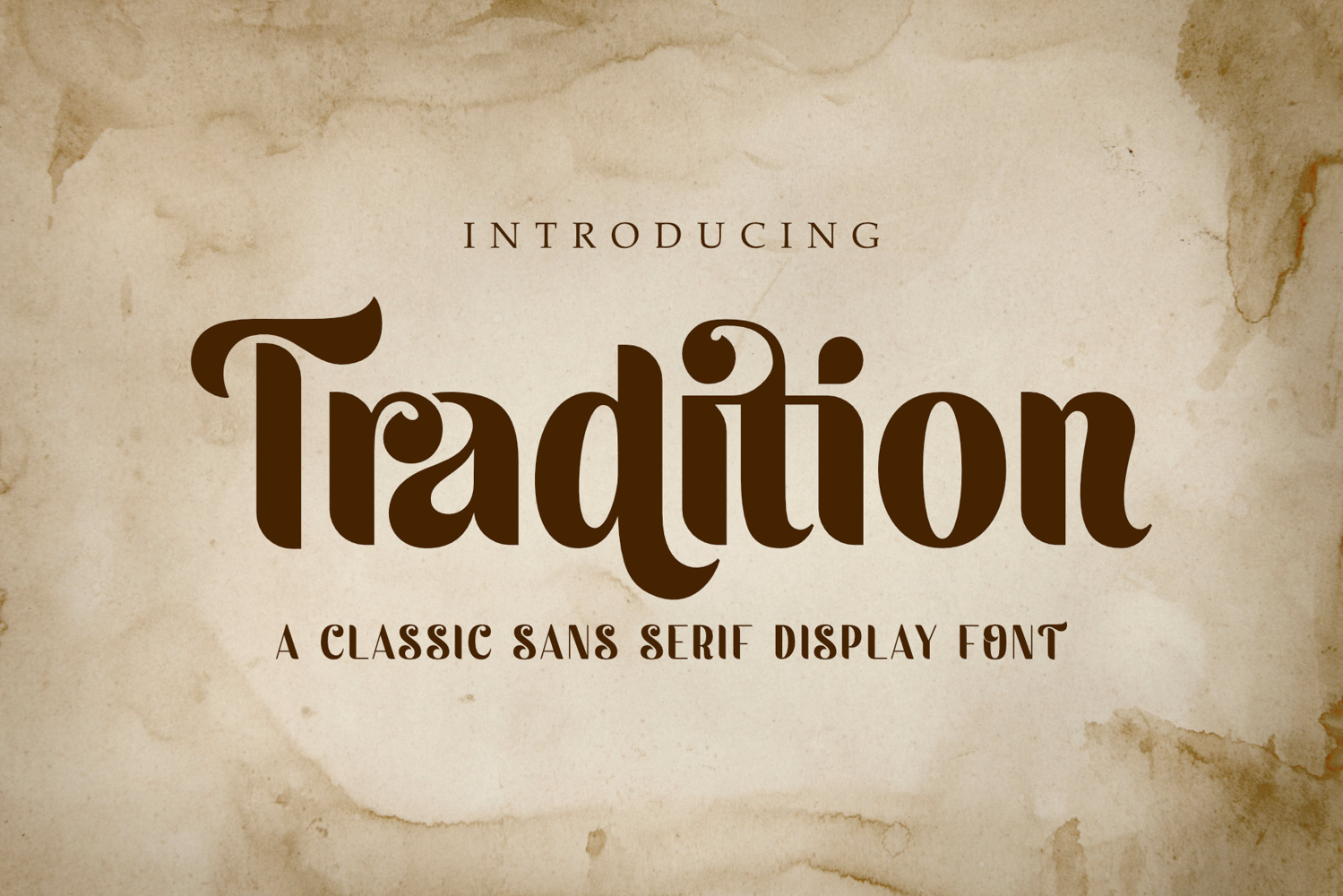
Tradition | A Classic Display Sans Serif Font
Tradition
Tradition is a classic display sans serif font that embodies timeless elegance and sophistication. Its clean, sharp lines and balanced letterforms make it an ideal choice for a variety of projects where a touch of refined vintage charm is needed.
This font is perfect for t-shirt designs, brand logos, corporate branding, and other business materials. Tradition’s design is both strong and subtle, ensuring your message is delivered with clarity and style. It brings a sense of heritage and quality to any project, making it a powerful tool for businesses aiming to build a lasting and trustworthy brand identity.
With its ability to blend seamlessly into both modern and classic designs, Tradition offers remarkable versatility. It's more than just a font; it's a statement of enduring style and a commitment to quality. Embrace the elegance and timelessness of Tradition, and let your creativity shine through every project.